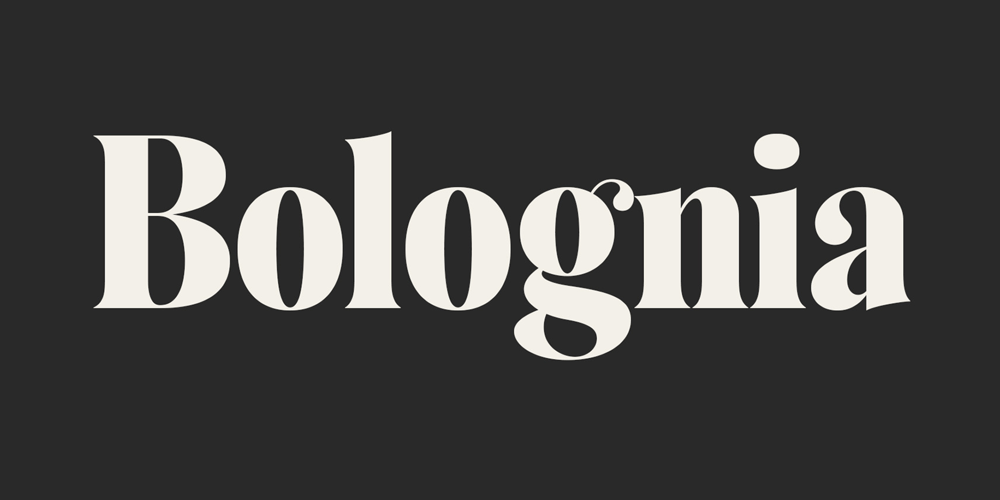
Bolognia Font Family was designed by Trio Nazzar Saputra, Wahyu Hadi Yuana and published by Craft Supply Co. Bolognia contains 6 styles and family package options. Bolognia is a classic serif typeface with high-contrast leaning to the concept of contemporary typefaces. Bolognia has a tall x-height value, modern proportion, transitional serif and extreme stroke contrast with vertical stress. Available in 6 weights, this typeface is a good choice to provide clear solutions for a variety of situations and settings such as editorials and headlines.